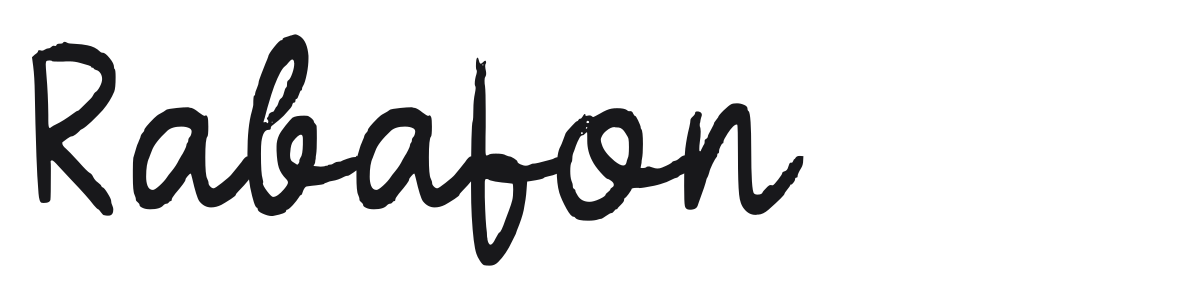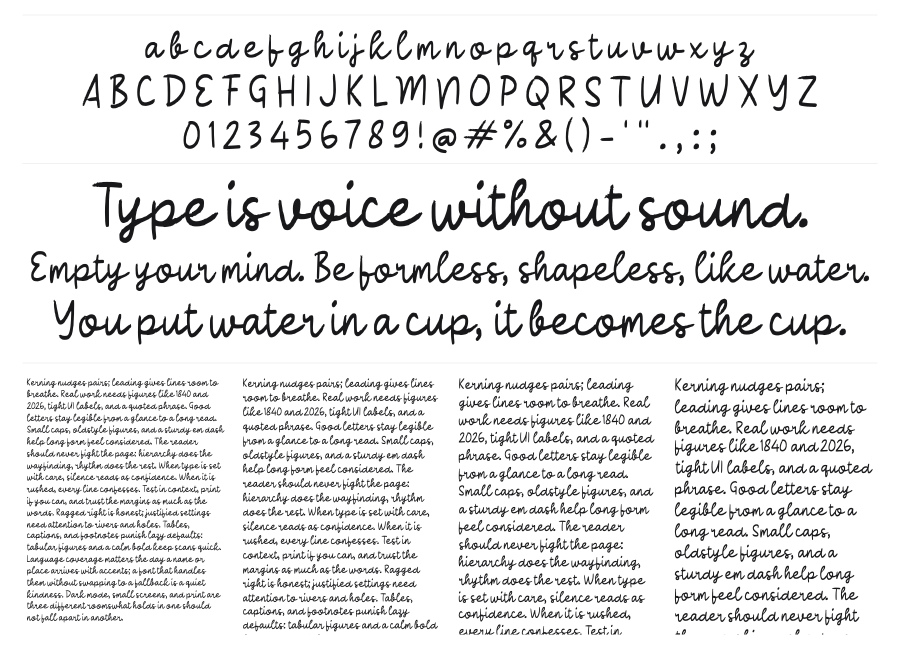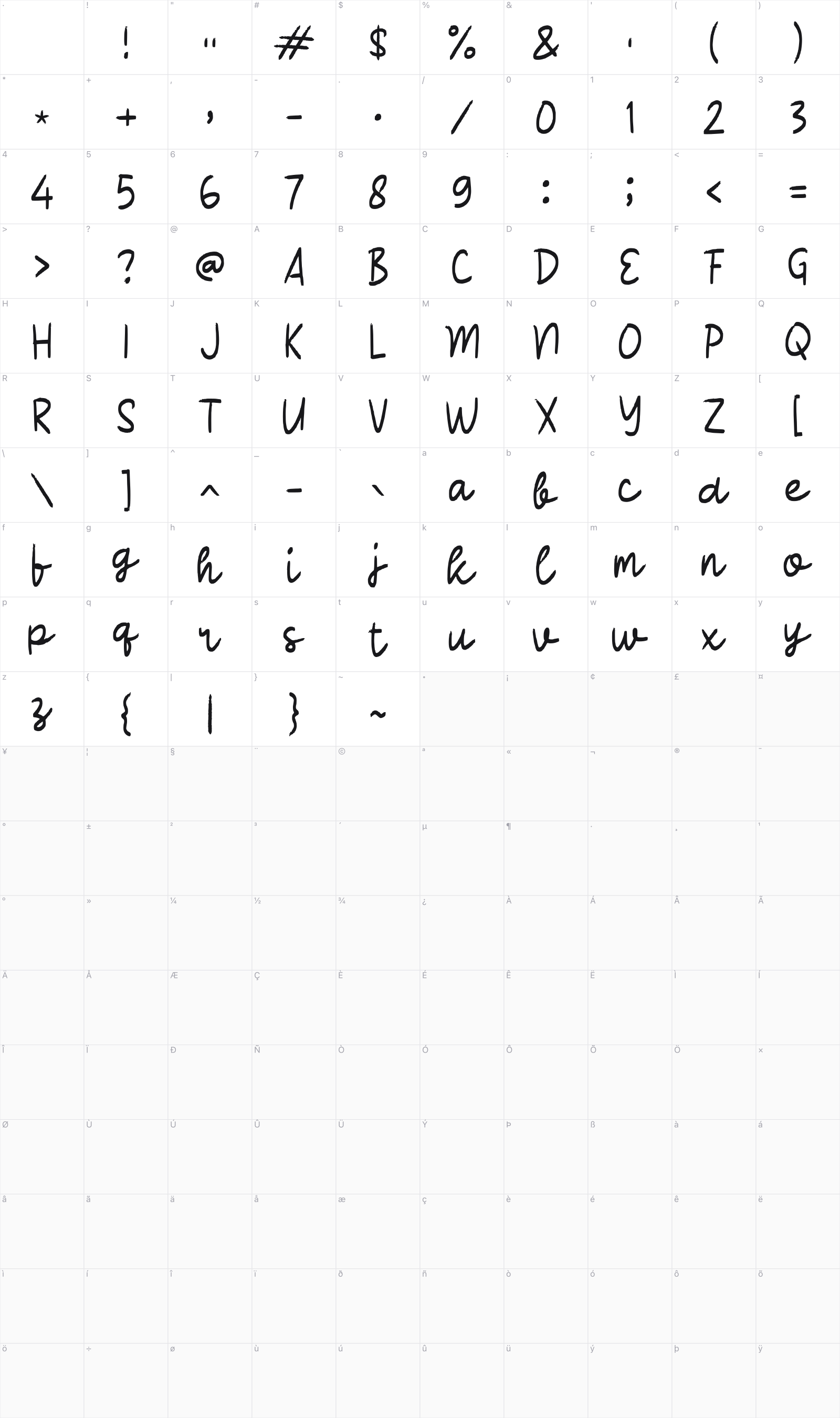
Rabafon
Rabafon is a casual brush script that looks like it was written with a loaded ink brush in one confident pass. The strokes carry visible texture and natural variation, giving it an authentically hand-lettered quality without feeling sloppy. It suits branding and packaging that wants warmth and a human touch.